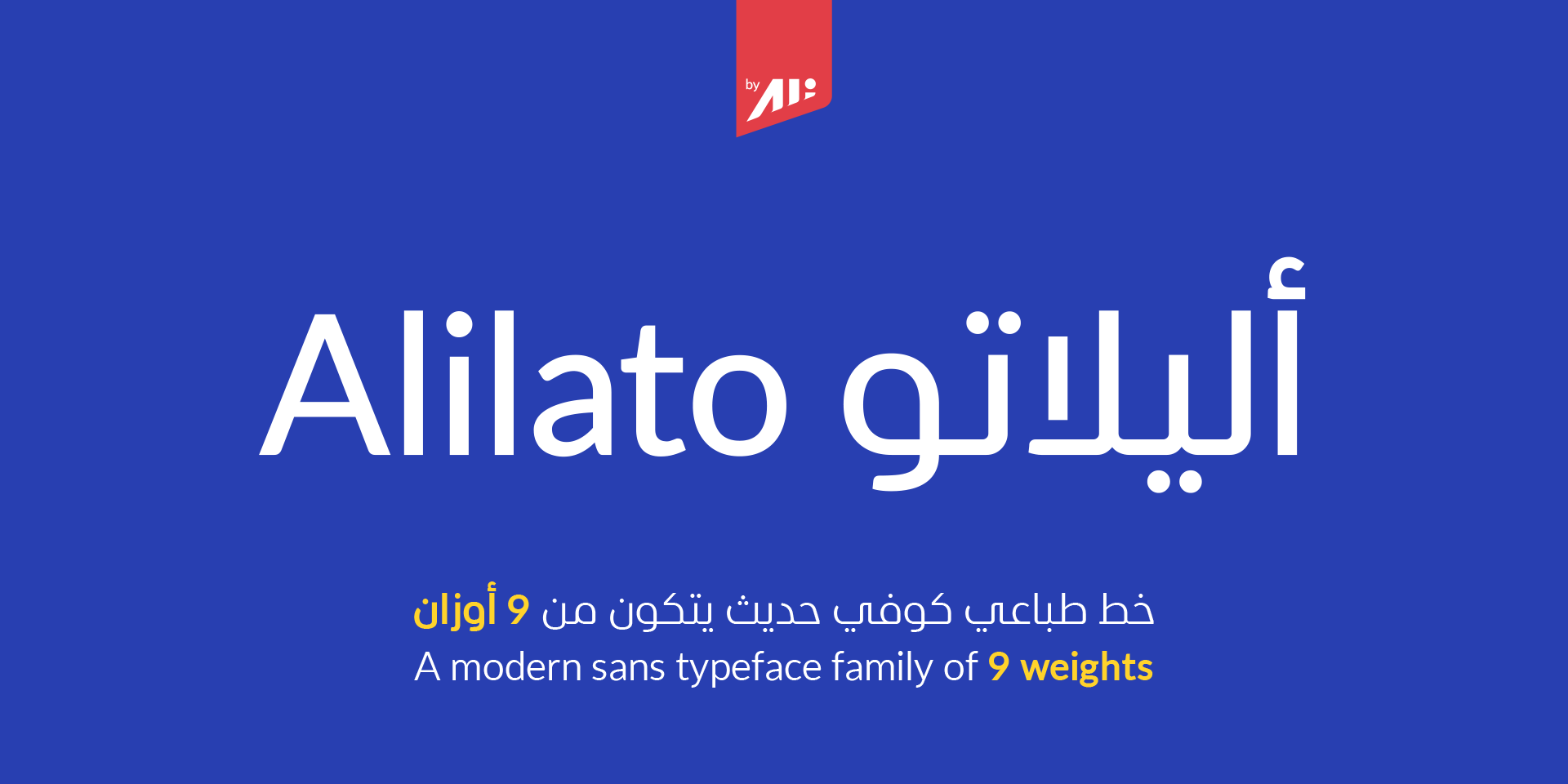
The Alilato Arabic Font excels in various design applications including contemporary Arabic branding projects, bilingual publication layouts, modern Islamic cultural communications, multinational corporate identities, Arabic web typography, international marketing campaigns, Middle Eastern business presentations, cultural event promotions, educational Arabic materials, and sophisticated multilingual design projects that demand authentic Arabic script excellence and cross-cultural appeal.
What makes the Alilato Arabic Font exciting is its masterful balance of traditional Arabic calligraphic beauty with contemporary design sensibilities that create letterforms perfectly suited for modern digital and print applications. This typeface demonstrates exceptional cultural sensitivity through its authentic representation of Arabic script traditions while incorporating technical optimizations that ensure flawless performance across diverse platforms and languages. The font's bicultural personality makes it ideal for international brands and organizations seeking to communicate respectfully and effectively with Arabic-speaking audiences through typography that honors cultural heritage while embracing contemporary functionality.
The Alilato Arabic Font family typically includes comprehensive weight variations optimized for Arabic script requirements, featuring traditional diacritical marks, contextual alternates, and ligatures that maintain authentic Arabic typography standards. These family options often include Latin script companions for seamless bilingual design, specialized Arabic numerals, and cultural symbols that enhance the font's utility for comprehensive Arabic communication projects requiring professional cultural authenticity.
International design professionals and multicultural organizations consistently select Alilato Arabic Font Free Download for projects requiring authentic Arabic typography that bridges traditional and contemporary design approaches. This typeface delivers exceptional performance in bilingual communications, cultural marketing, and international branding where establishing cultural credibility and demonstrating respect for Arabic language traditions is essential for audience connection. The font's authentic character makes it particularly valuable for educational and cultural institutions. Download Alilato Arabic Font Free Download today to access this distinguished typeface that transforms Arabic communications with its cultural authenticity and contemporary sophistication, creating compelling multilingual experiences that honor Arabic script traditions while meeting modern design requirements and international communication standards.